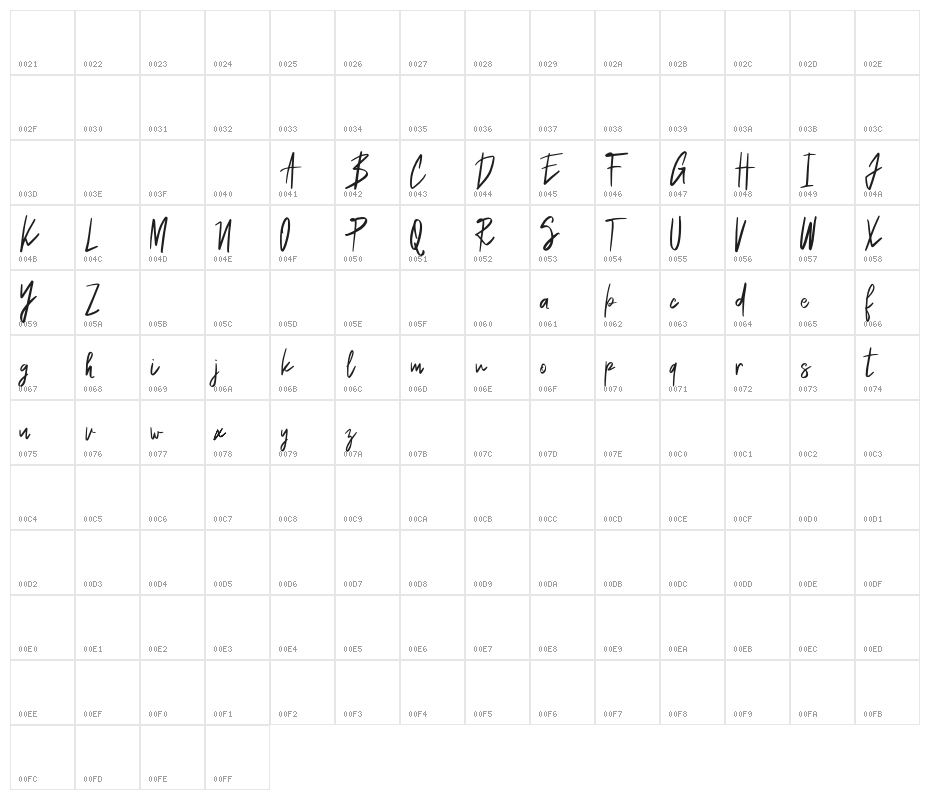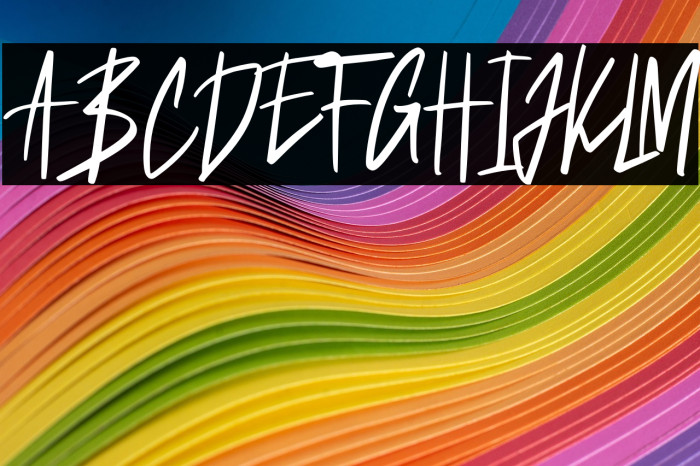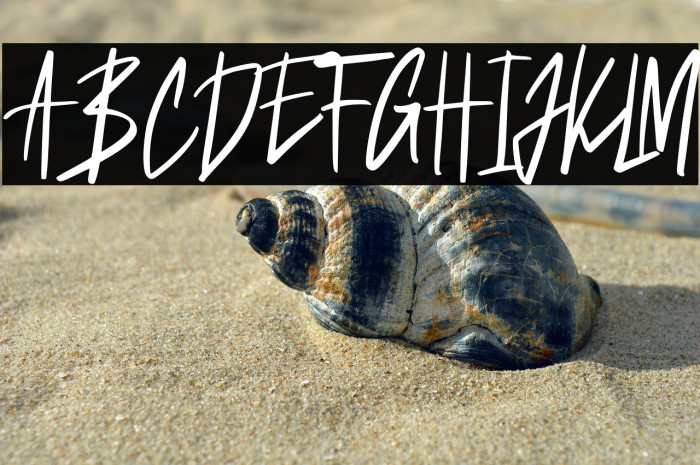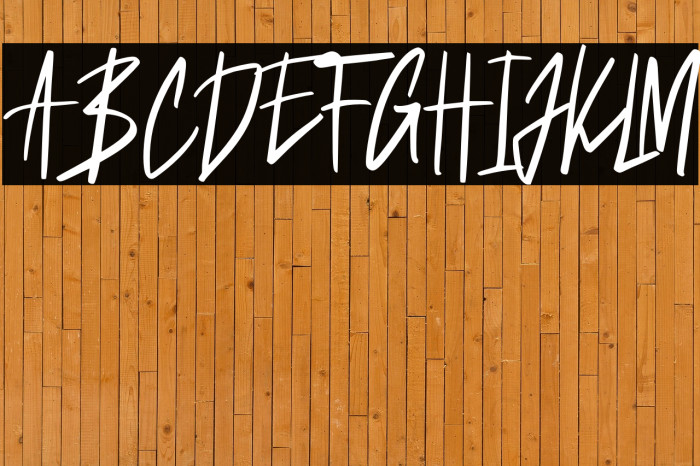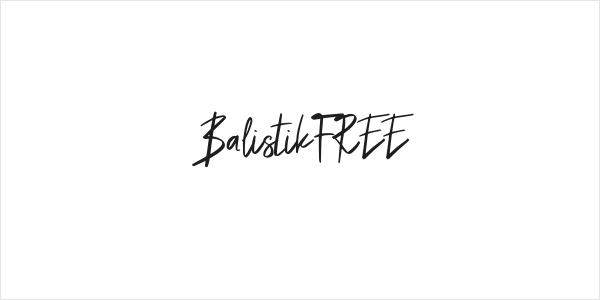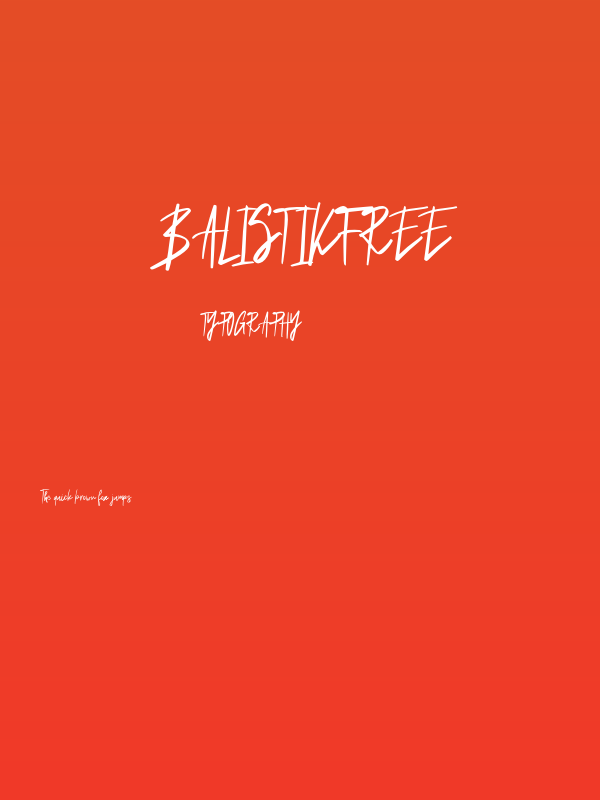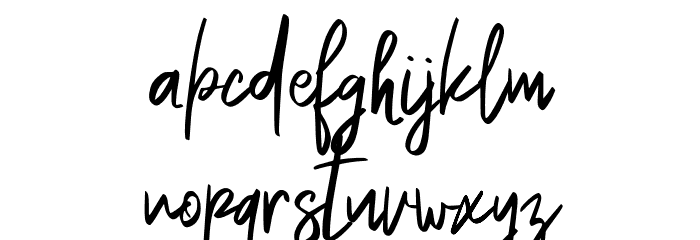
BalistikFREE Font
BalistikFREE Description
This font features a dynamic and energetic handwritten style, characterized by its bold and expressive strokes. The uppercase letters are tall and slightly condensed, with a playful, almost chaotic arrangement that gives a sense of movement and spontaneity. The lowercase letters maintain a consistent flow, with smooth curves and a casual elegance. The overall appearance is both artistic and modern, making it suitable for creative projects that require a personal touch. The font's unique style is accentuated by its irregular baseline and varied stroke widths, adding to its charm and versatility.
| Proposed Projects | Ideal for branding, invitations, posters, and any design needing a personal, artistic touch. |